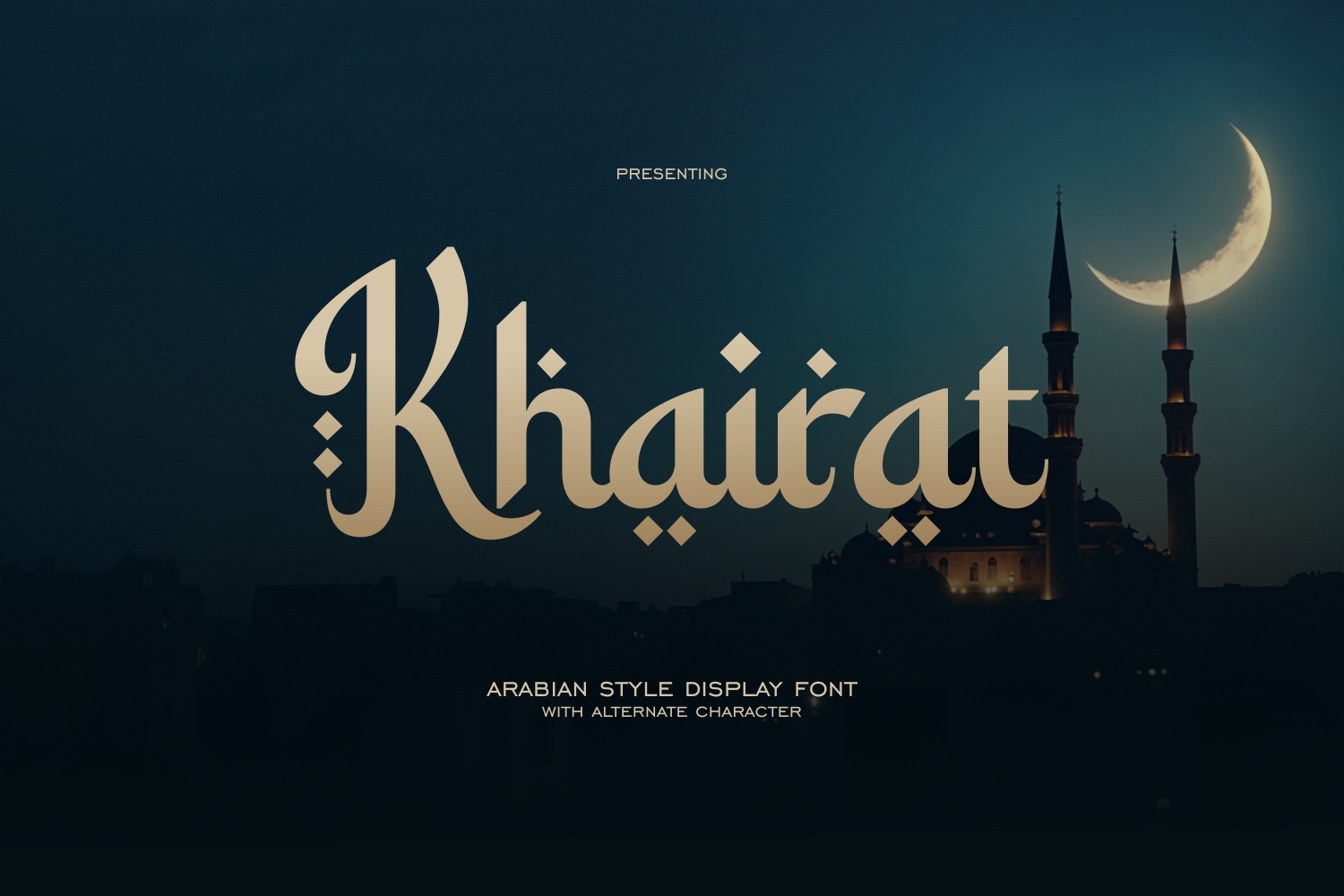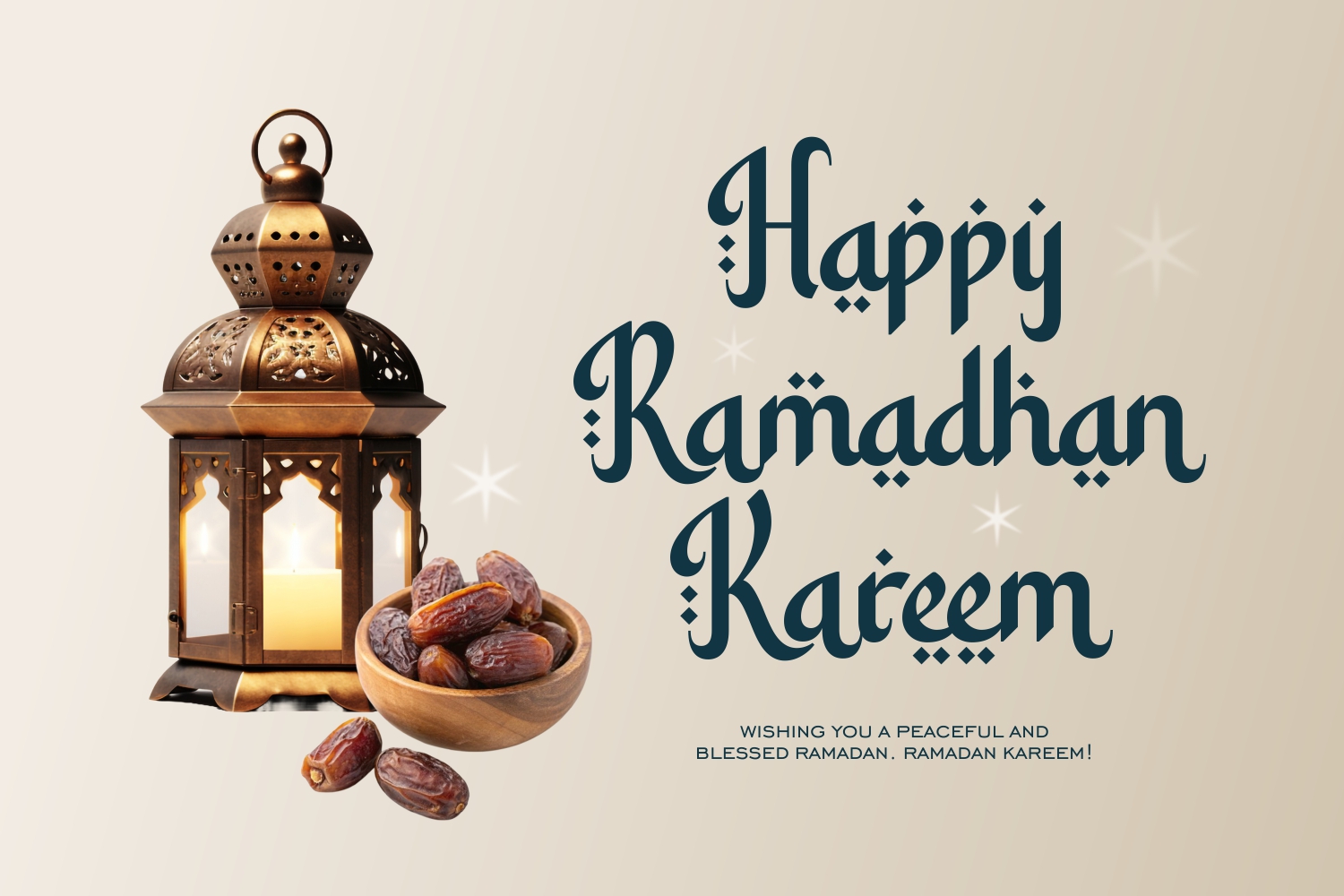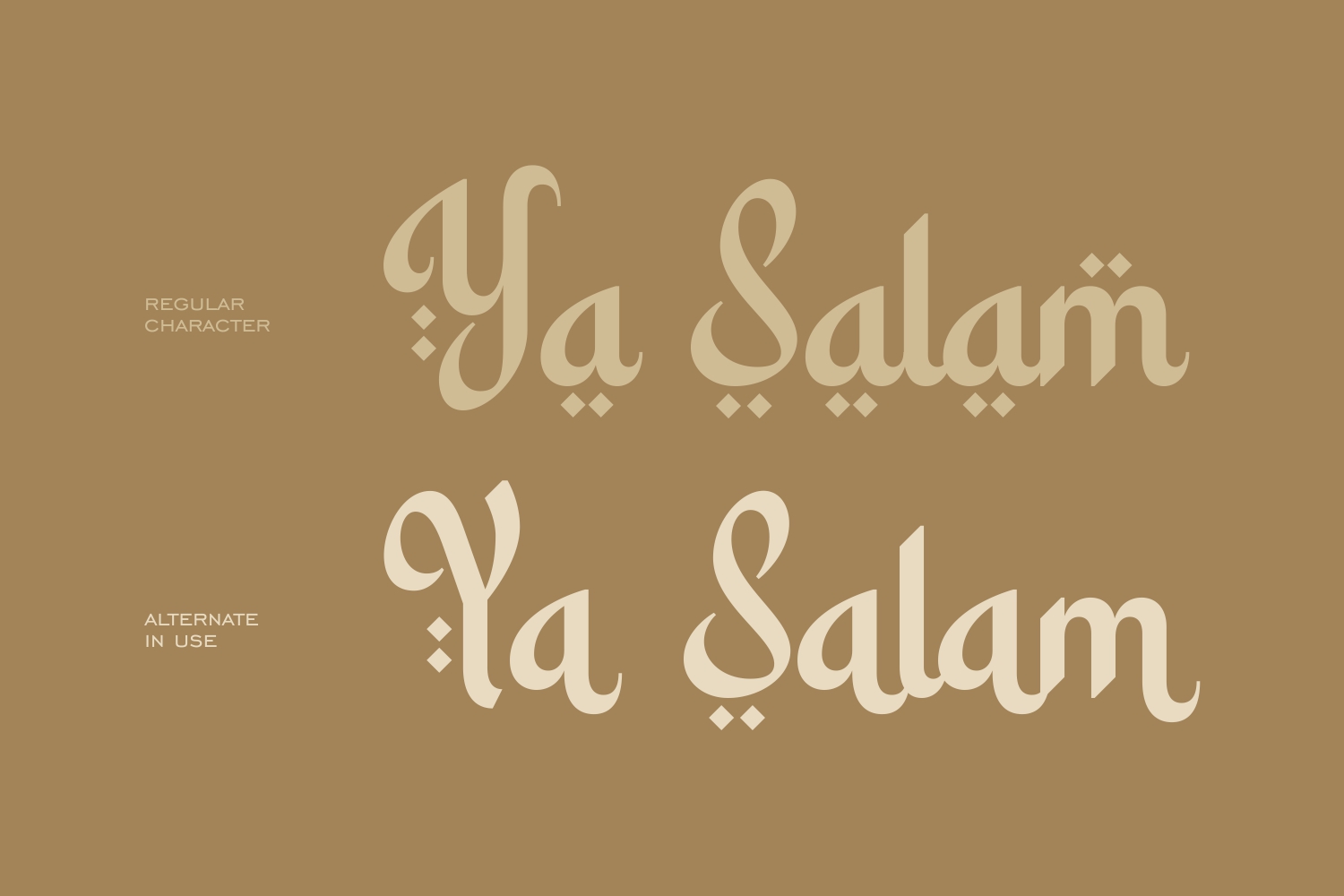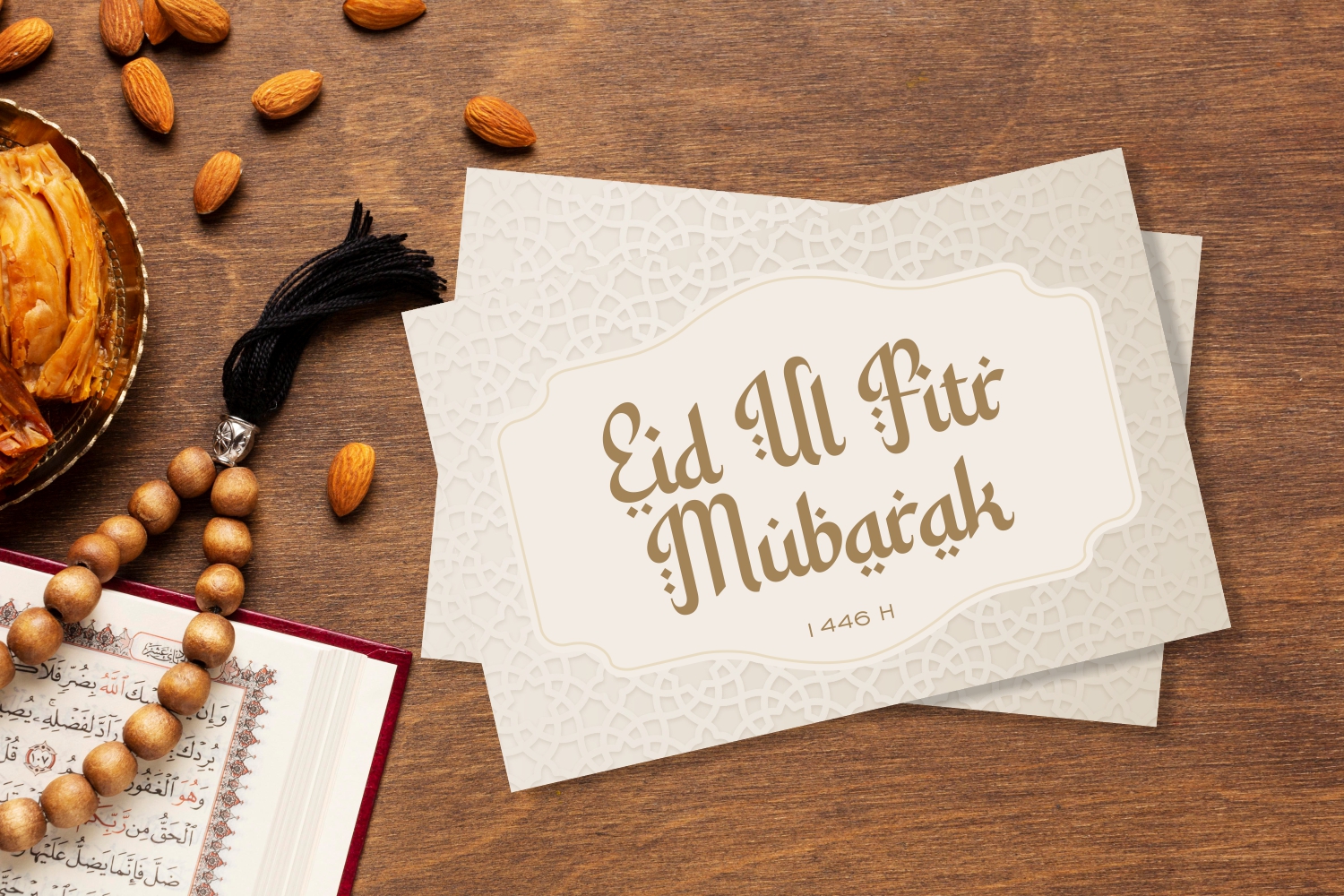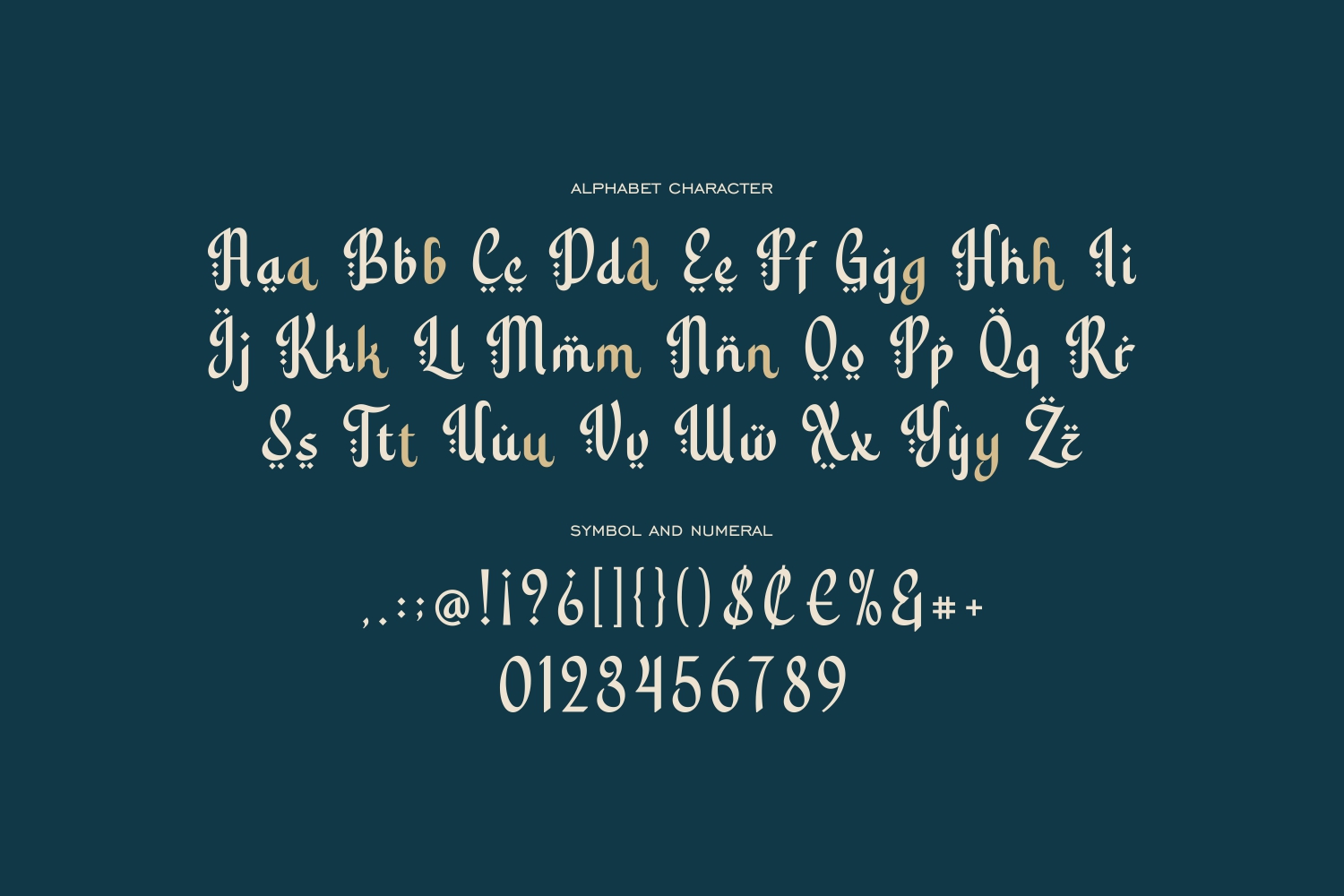
Khairat is an Arabian style display font that captures the beauty and elegance of Middle Eastern calligraphy with a modern touch. Its bold curves, ornamental accents, and graceful alternate characters bring a sense of sophistication and tradition, making it ideal for religious events, festive greetings, and cultural branding. The font’s distinct character design ensures your message stands out while maintaining a harmonious and authentic aesthetic.
Perfect for Ramadan promotions, Eid greetings, product packaging, or editorial design, Khairat combines readability with cultural depth. Its alternate characters add versatility, giving designers creative freedom to craft unique and meaningful typography compositions. Whether used in logos, posters, invitations, or social media graphics, this font adds a sense of spiritual elegance and timeless beauty.
Khairat